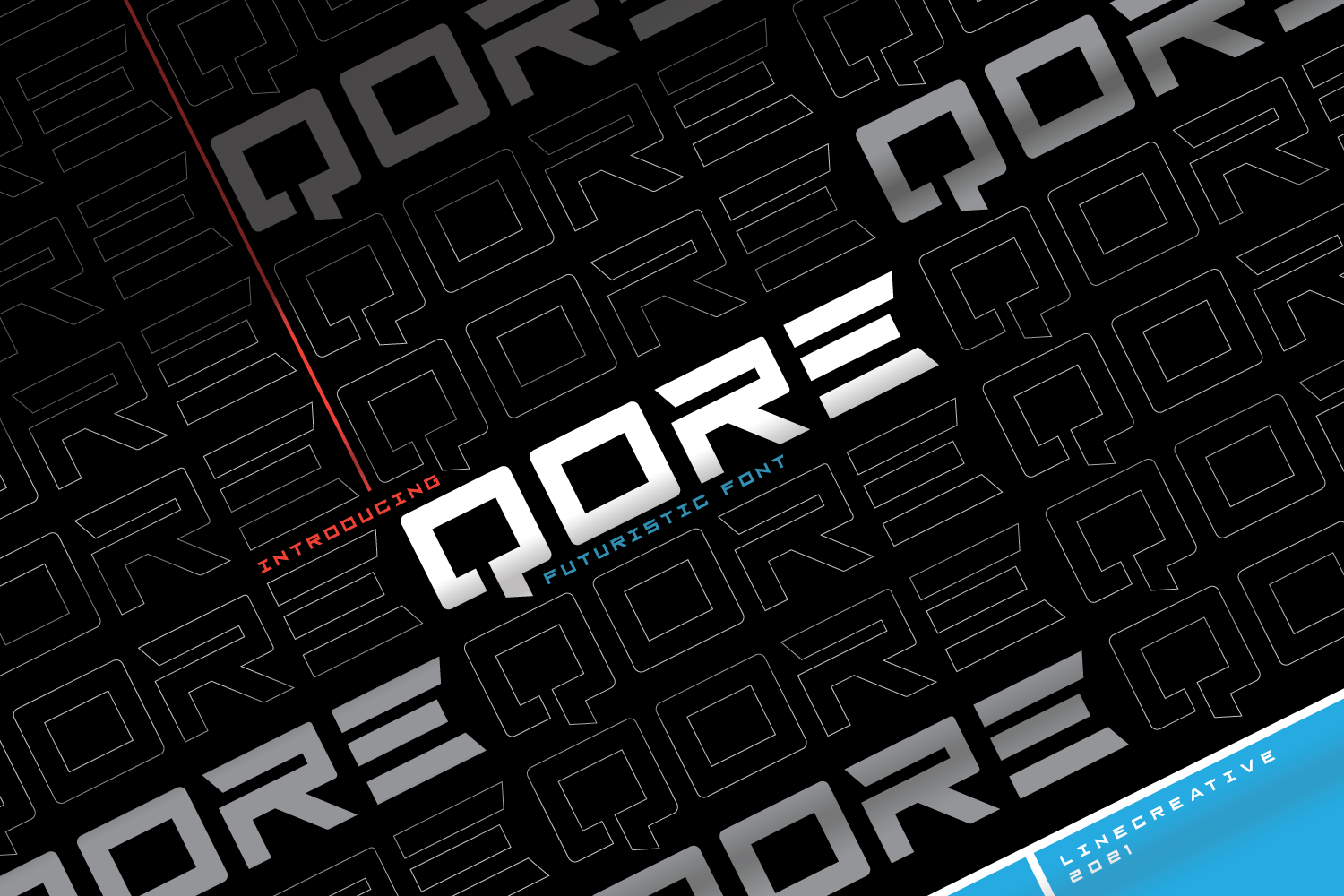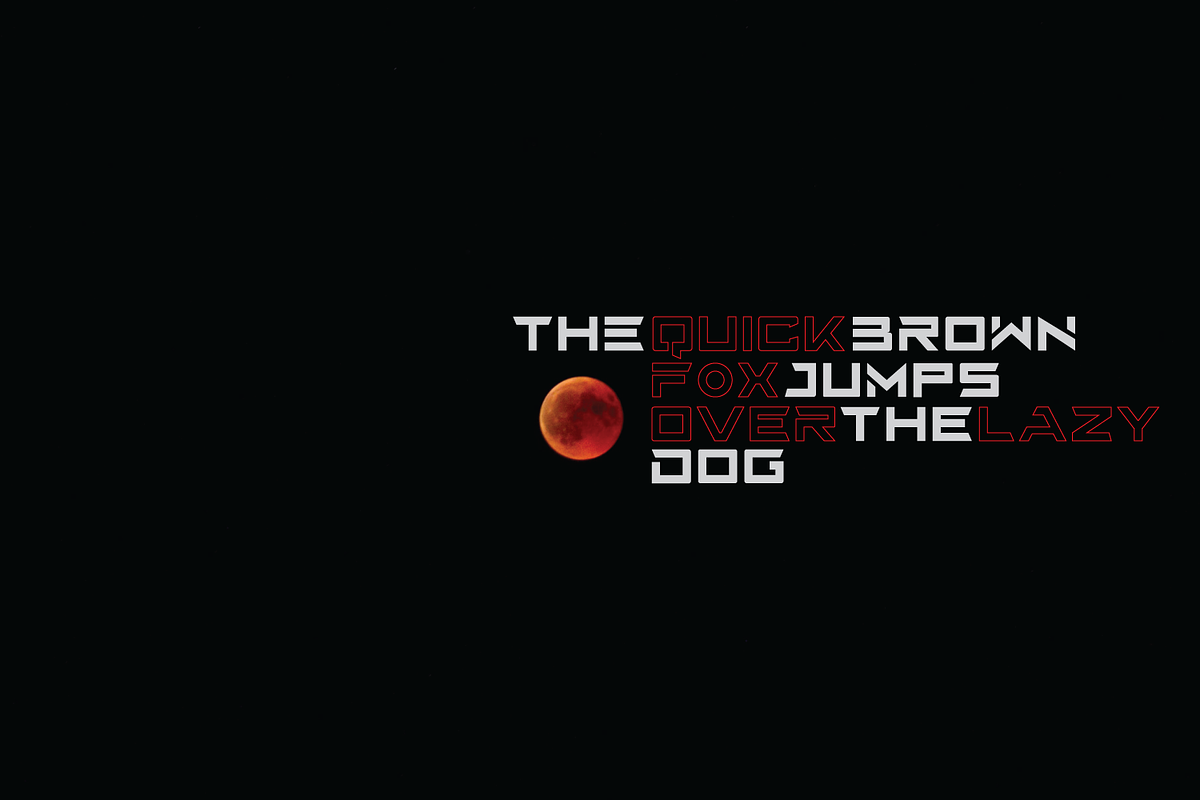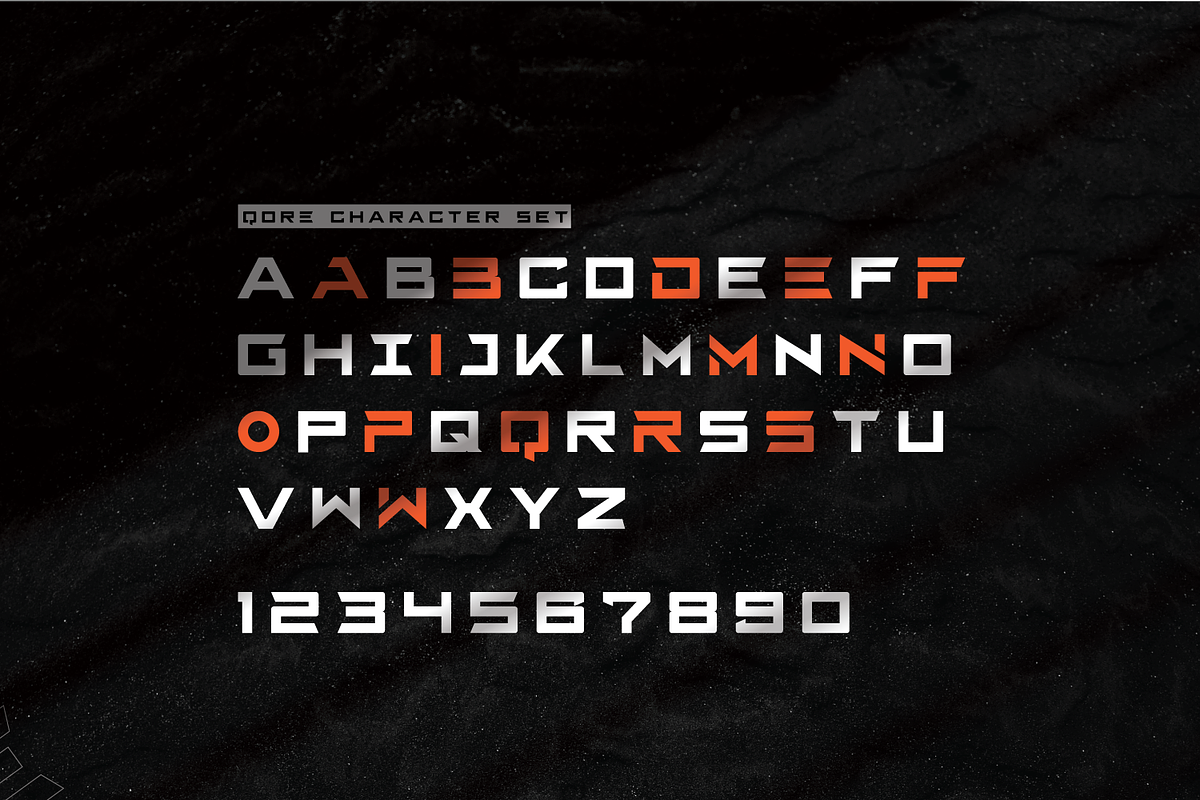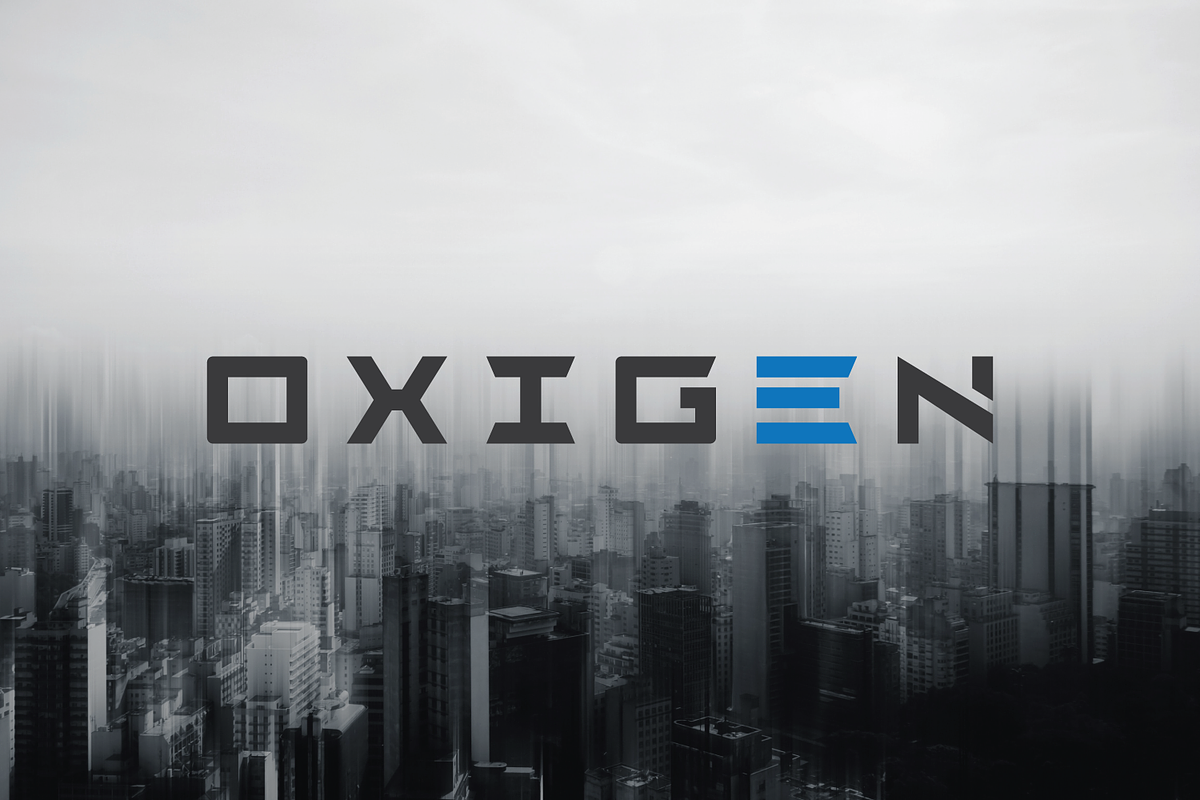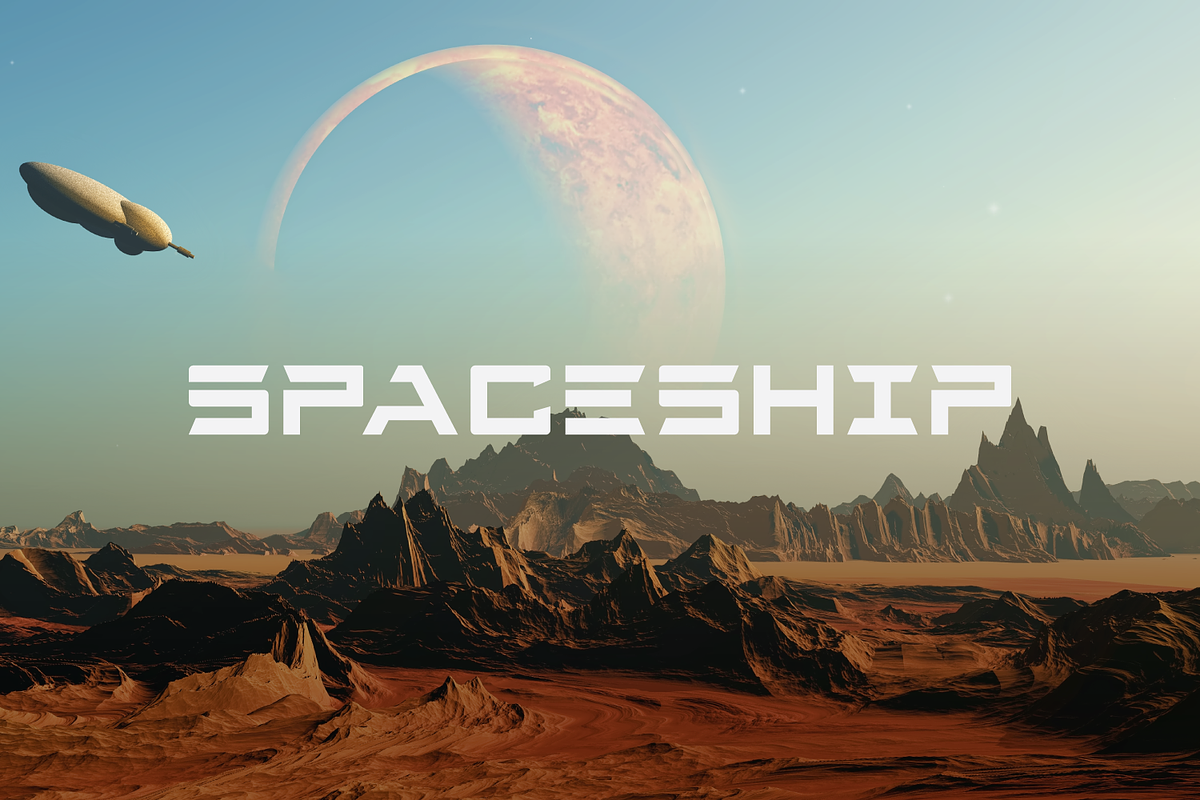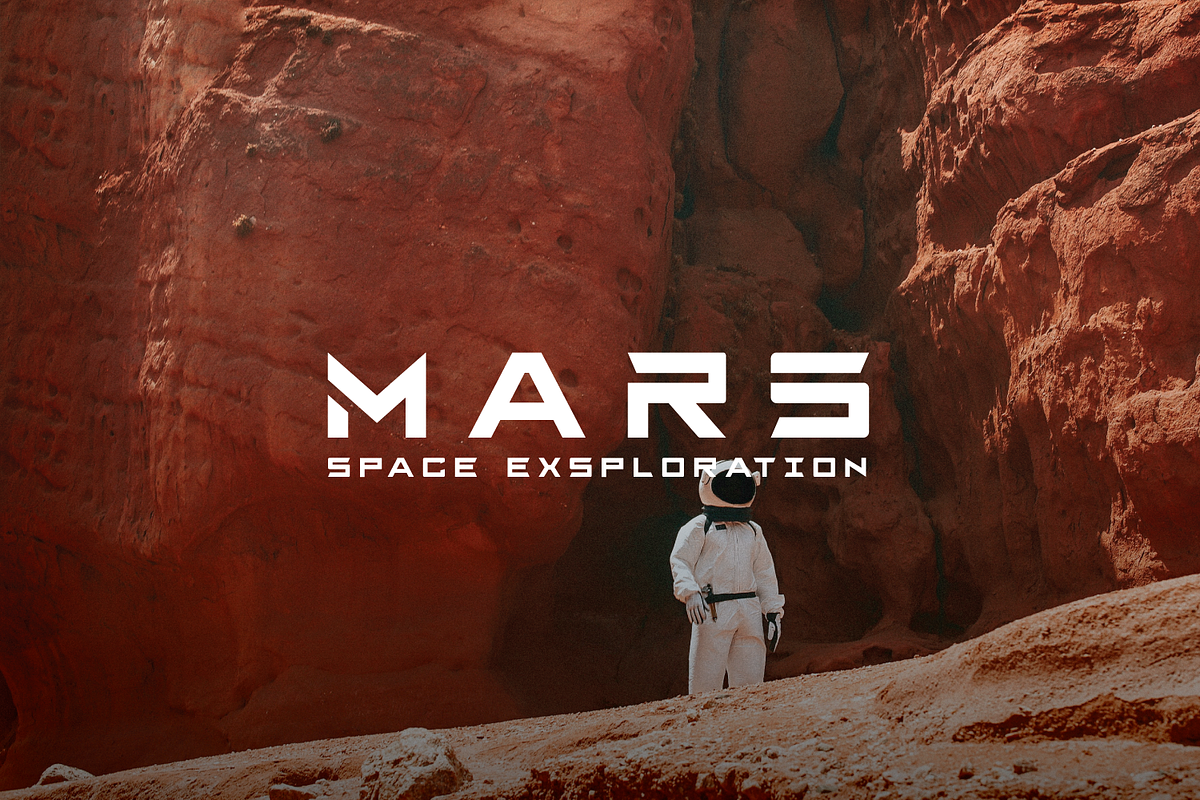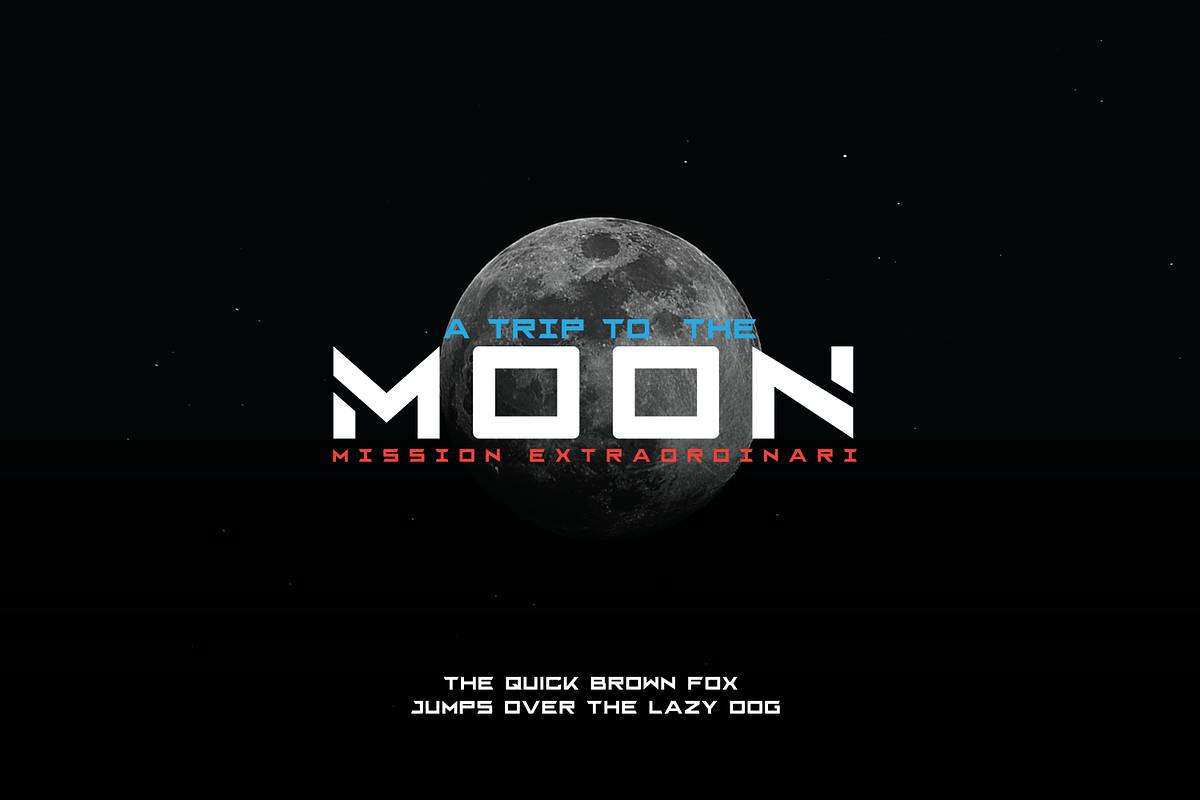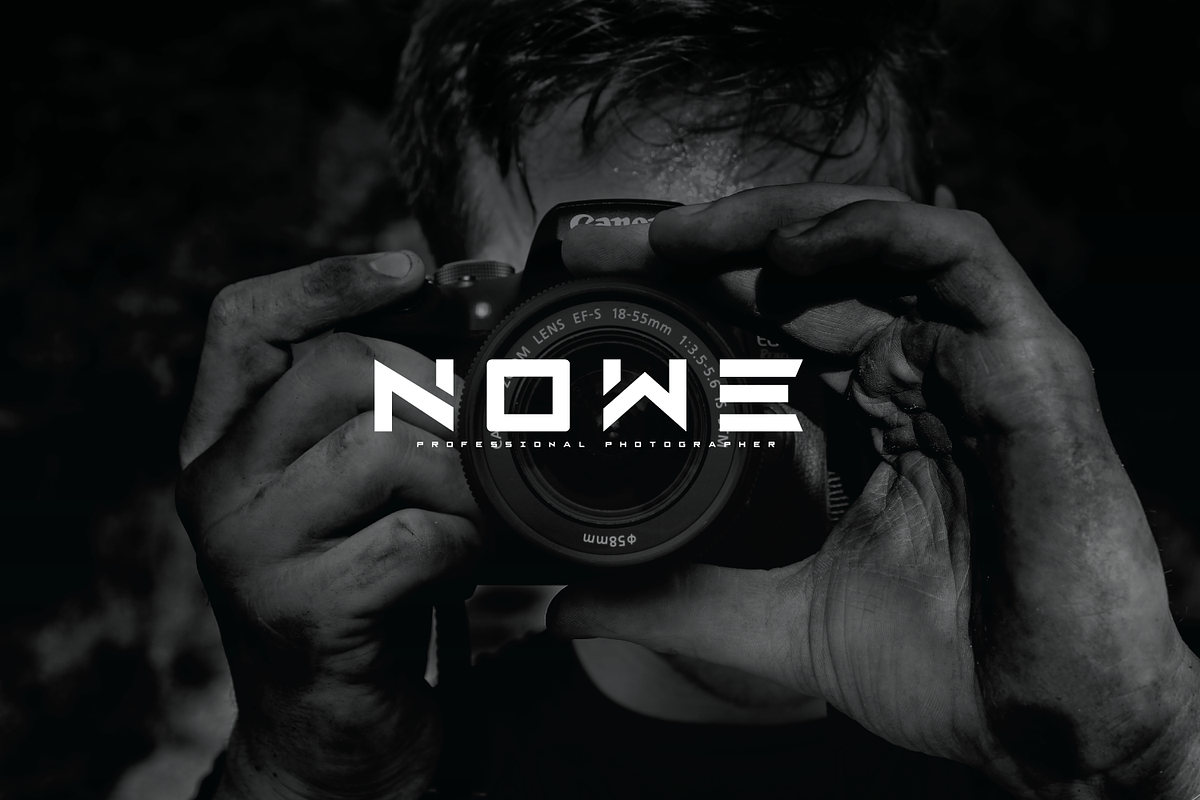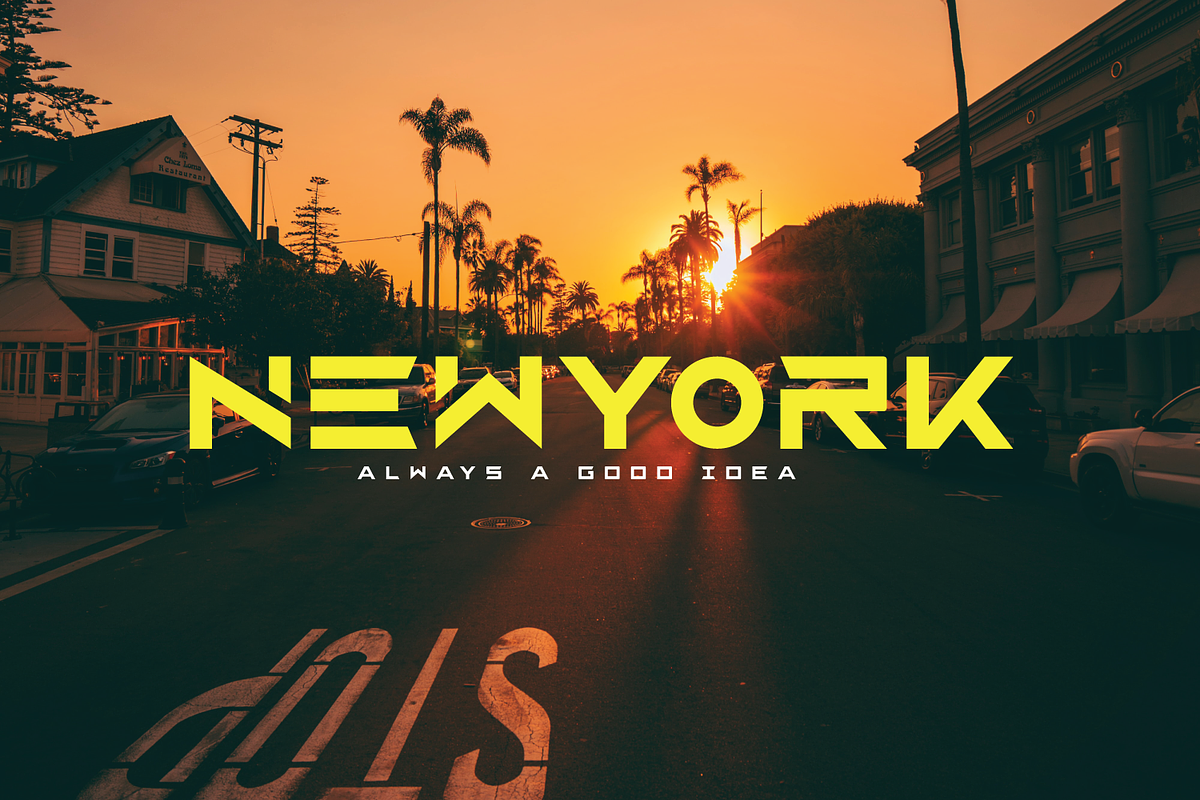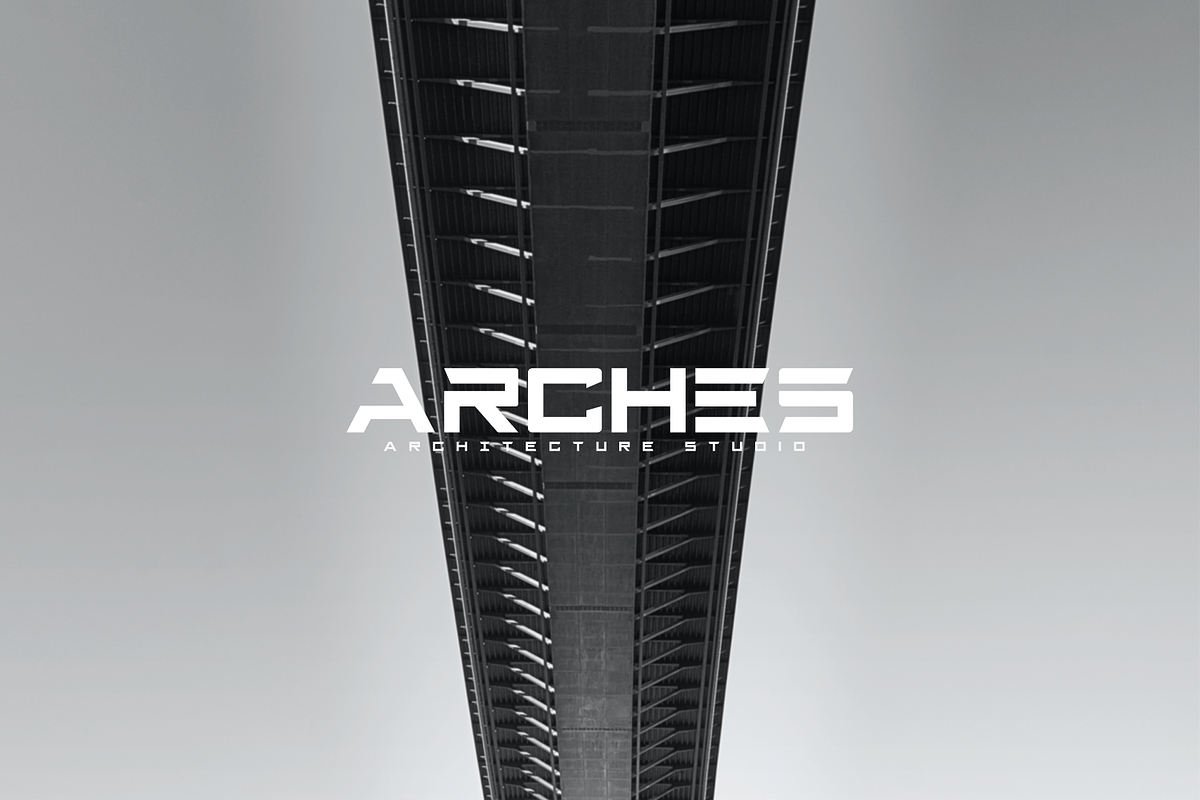
Qore - Futuristic Font
Qore font is a sans-serif typeface with minimal, modern,and futuristic style. This typeface is available in all caps only with stylistic alternates feature plus supports multilingual languages. This font is appropriate for your branding, logo design, shirts, etc.
Qore offers you:
- Qore- A clean San serif font including Upper & Lowercase characters(ALL CAPS)
- Stylistic alternates Character
- Numbers and Punctuation
- Multilingual Support (Latin Western Europe)